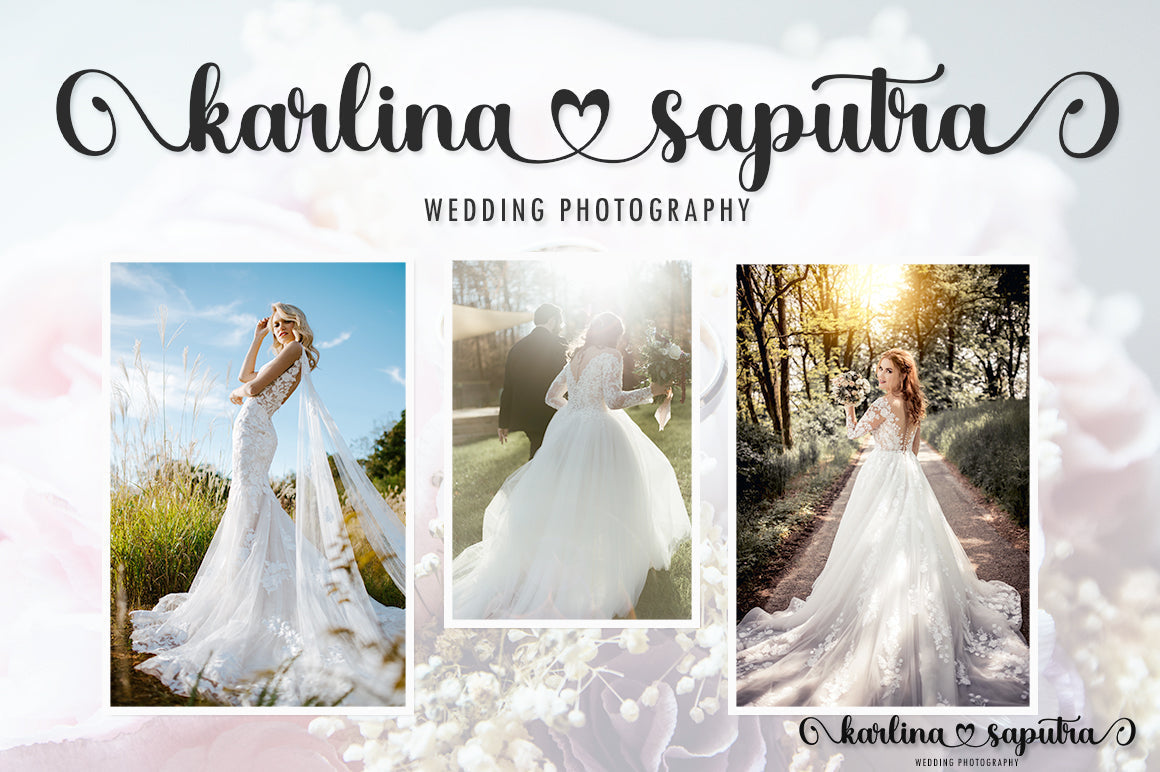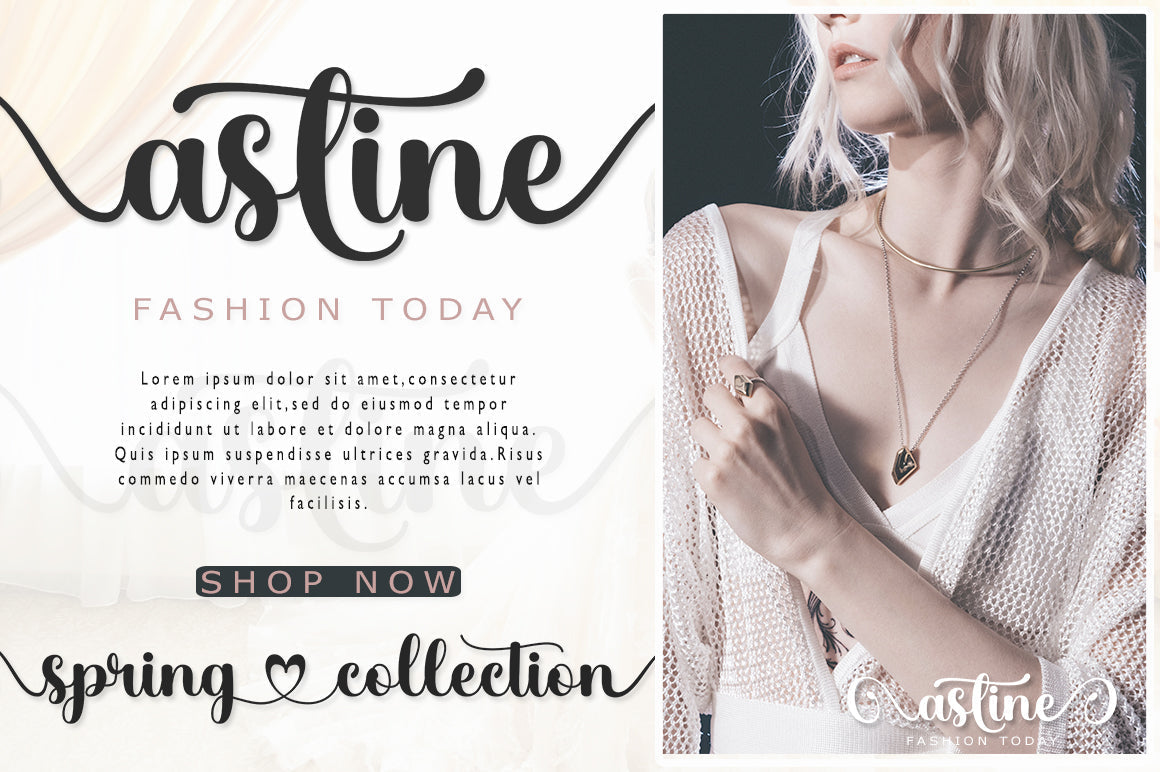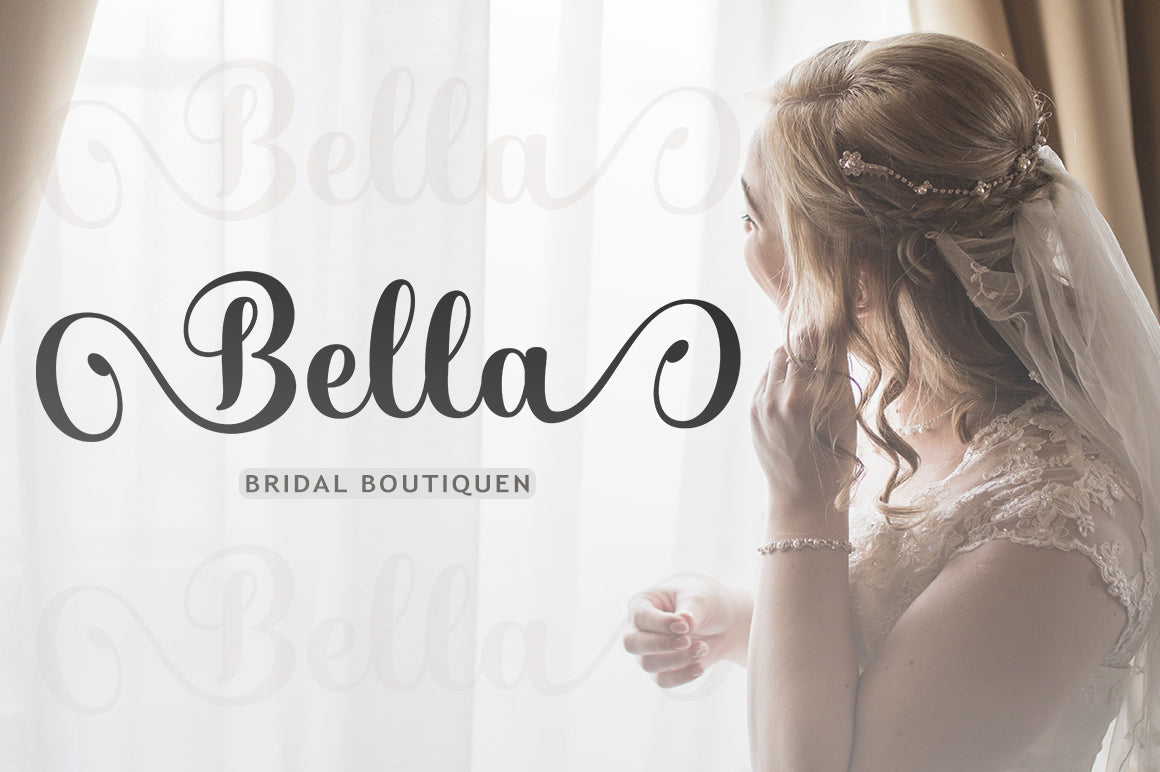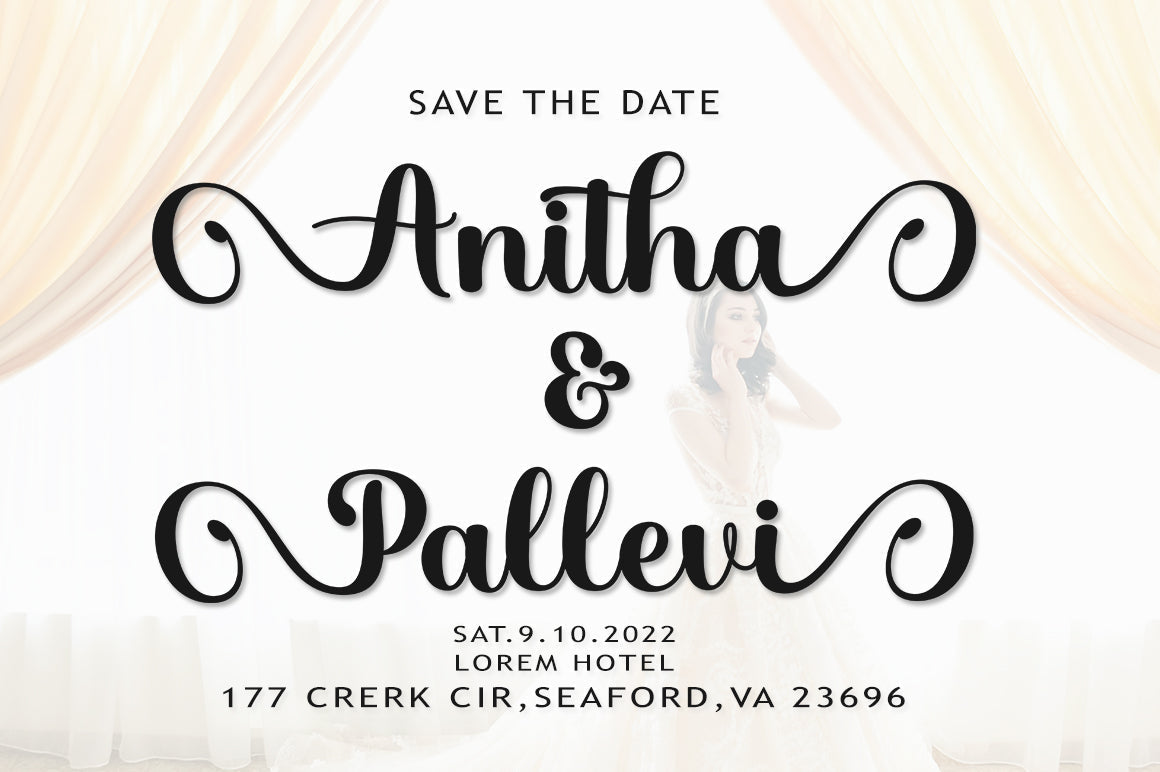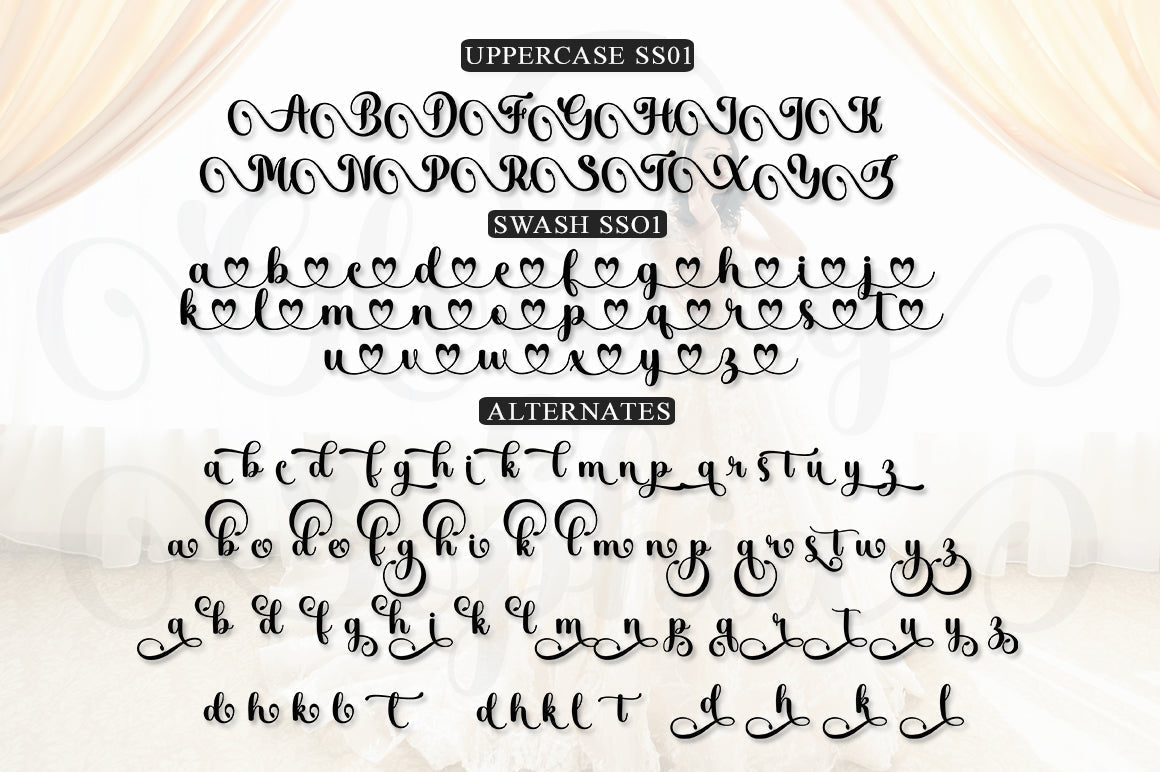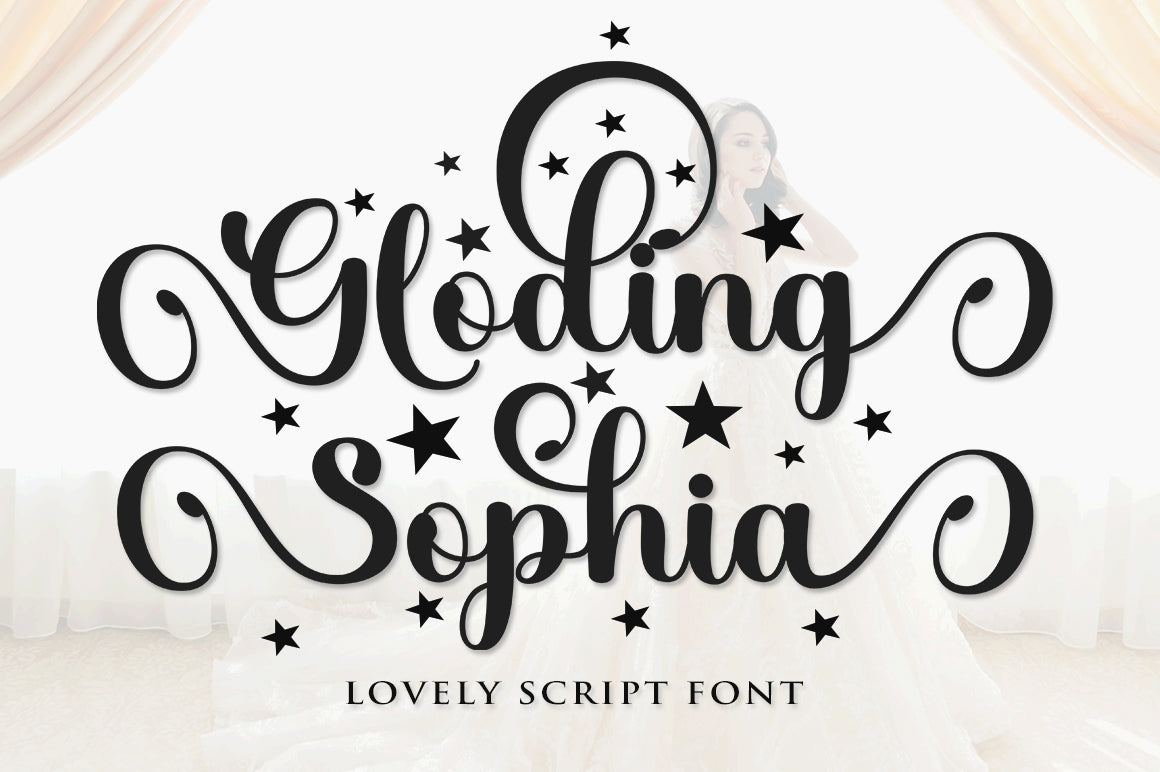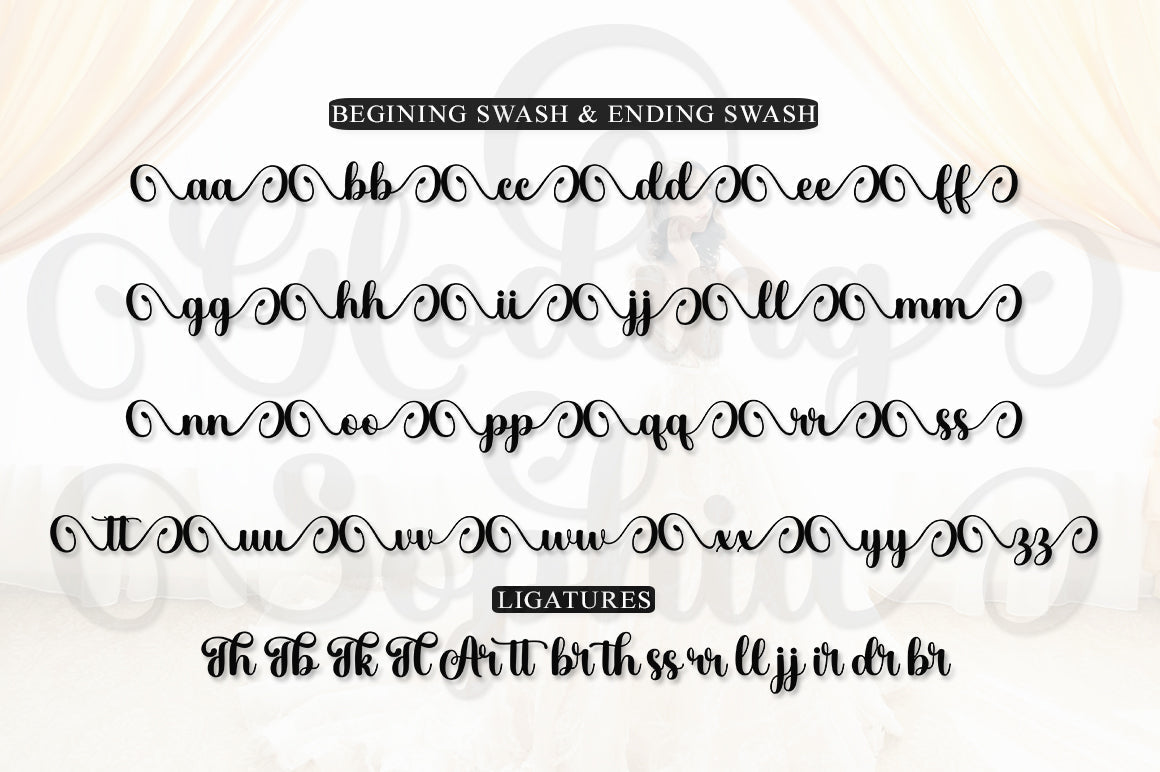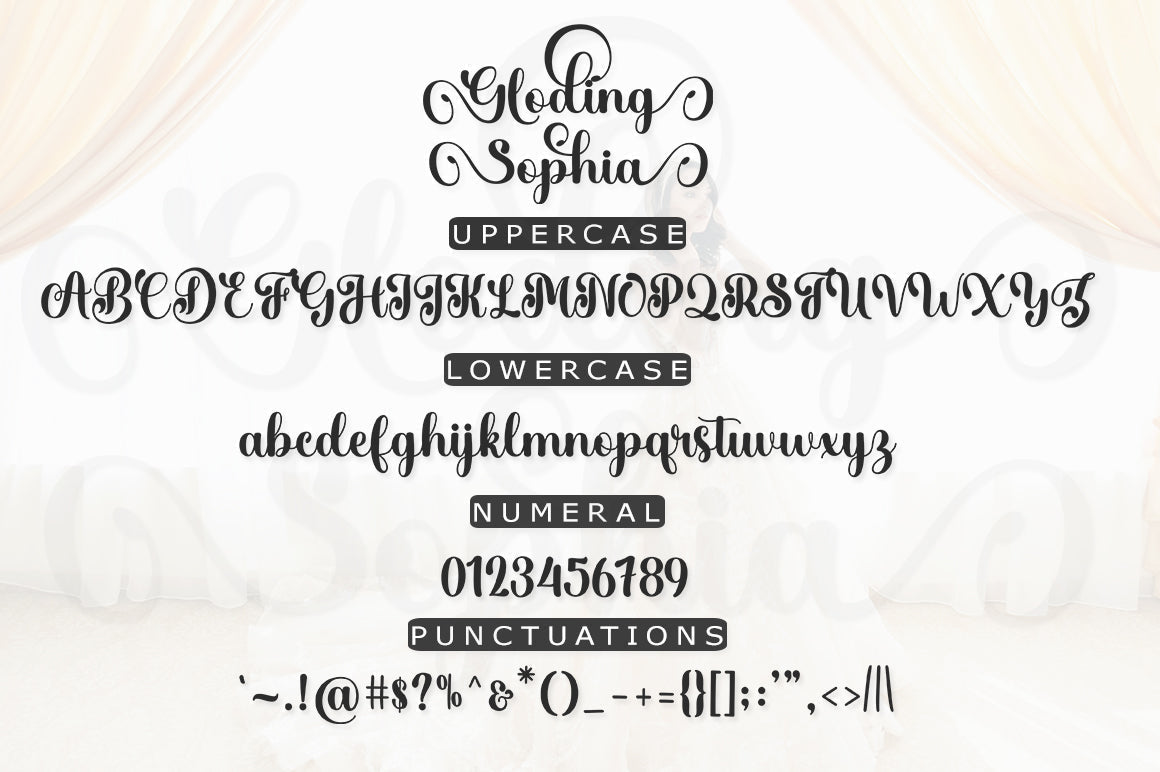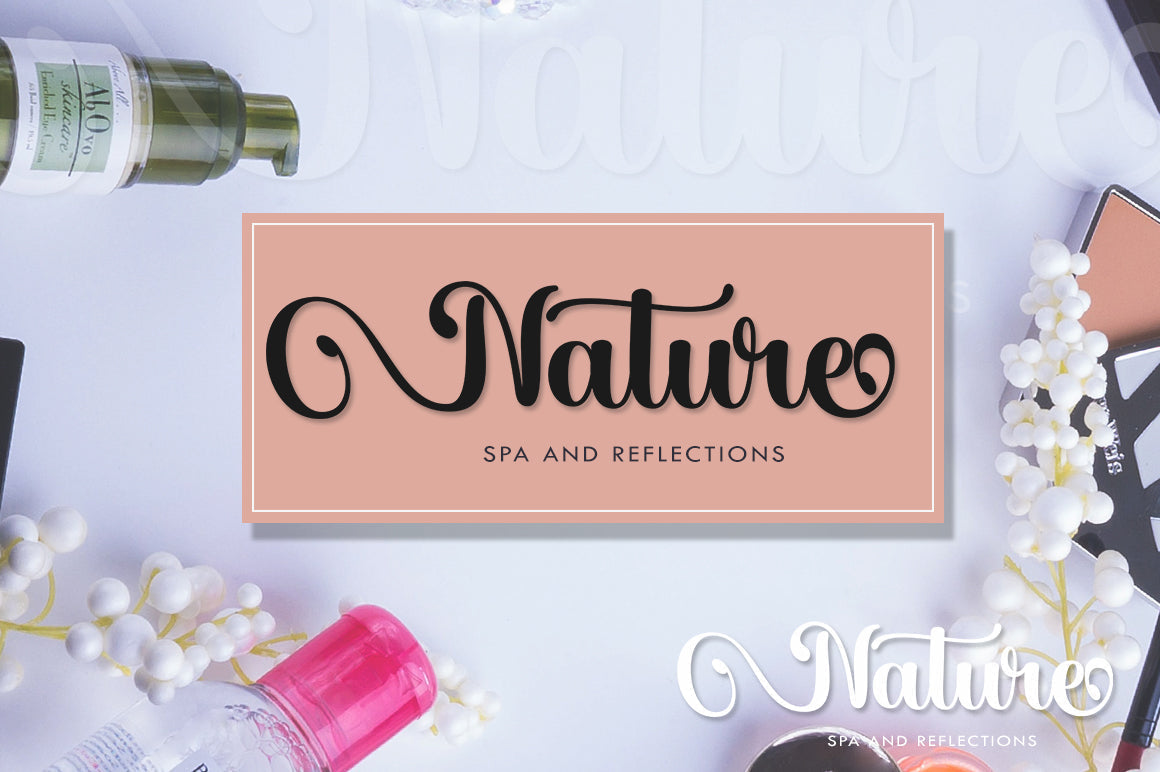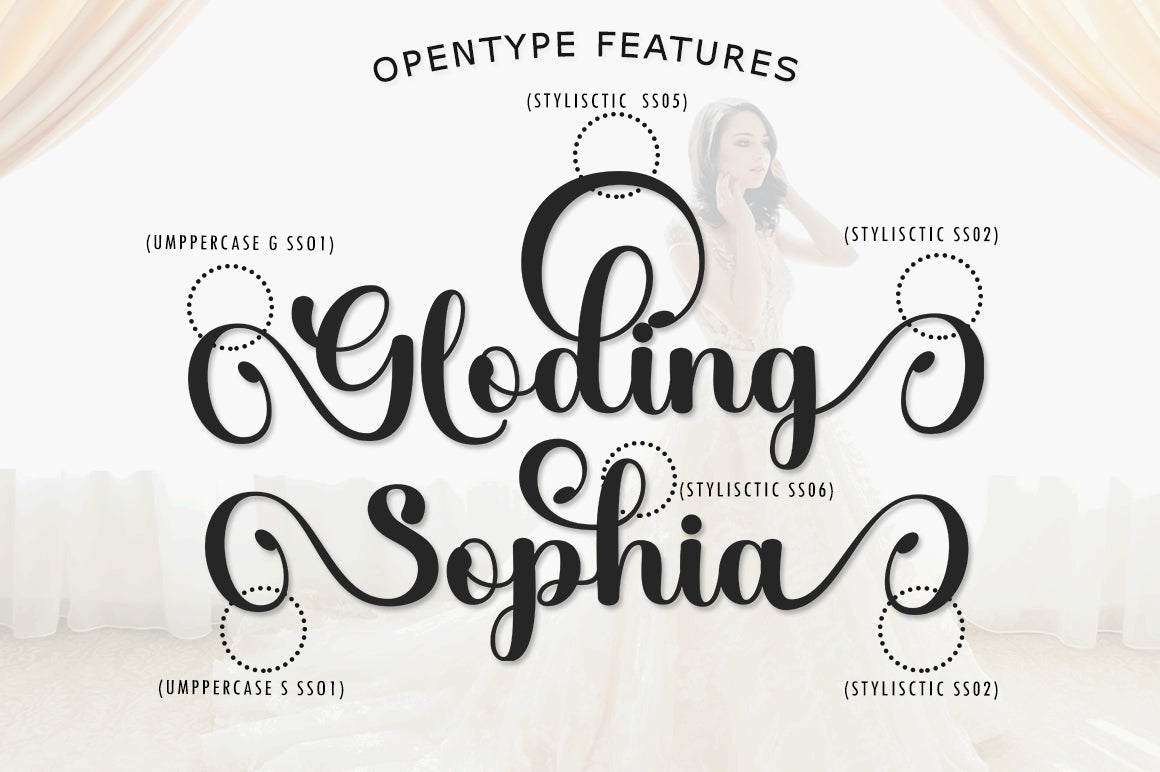
Gloding Sophia Script
Gloding Sophia Script is a hand brushed font created with brush and ink. Gloding Sophia Script This typeface is ideal for use in bold watercolor designs or handwritten styles, such as blog titles, posters, wedding elements, t-shirts, clothing, covers books, business cards, greeting cards, brands, cafe/restaurant signs. merchandising, etc. Contains full set: – Uppercase – Lowercase – alternative – fasteners – Punctuation – number – Multilingual support. How to access all alternative characters, using the Windows Character Map with Photoshop: – https://www.youtube.com/watch?v=Go9vacoYmBw How to access all alternative characters using Adobe Illustrator: – https://www.youtube.com/watch?v=XzwjMkbB-wQ Thank you!